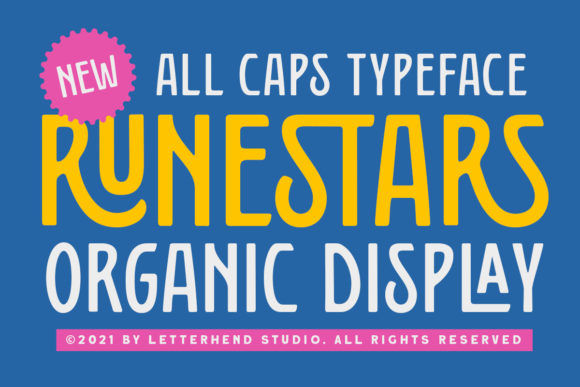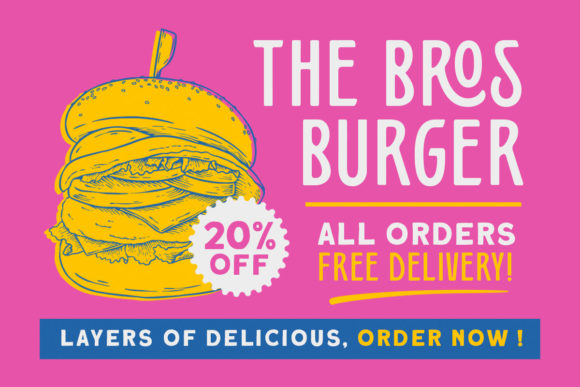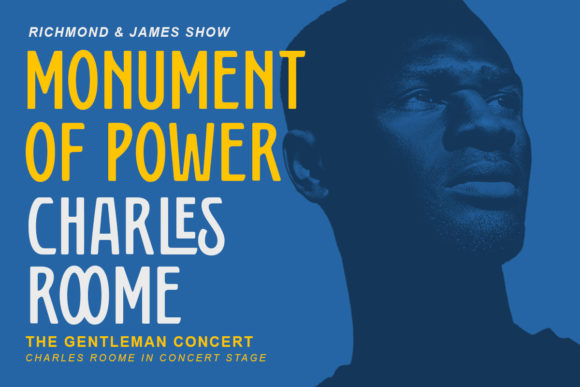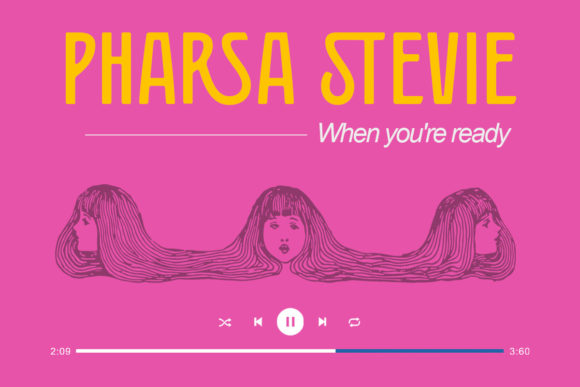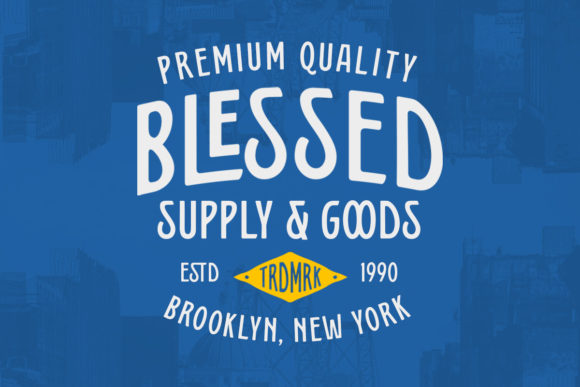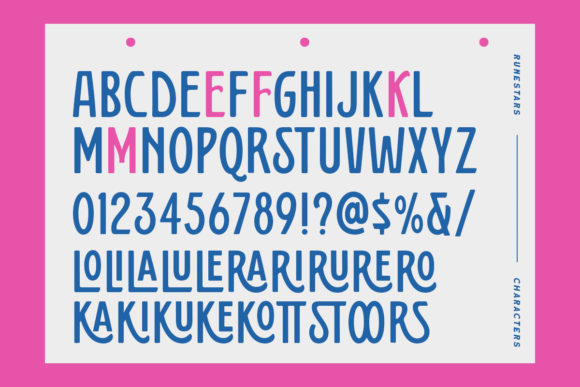
Runestars is an organic display typeface with unique characters and ligatures. This font was perfectly made to be applied in logos, invitations, labels, magazines, books, greeting/wedding cards, packaging, fashion, make-up, stationery, or any type of product with advertising purposes. Add it to your fonts’ library, and it will make your work a true piece of art!
Runestars Font